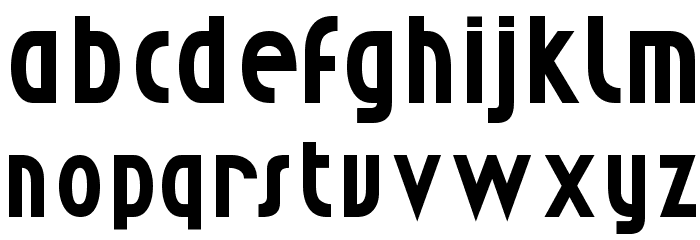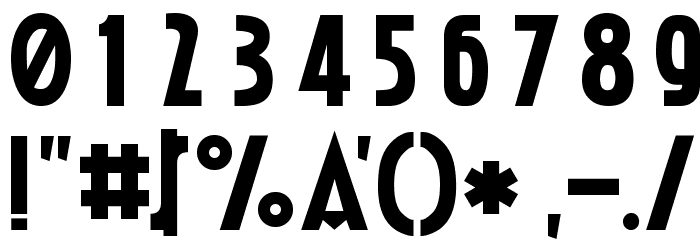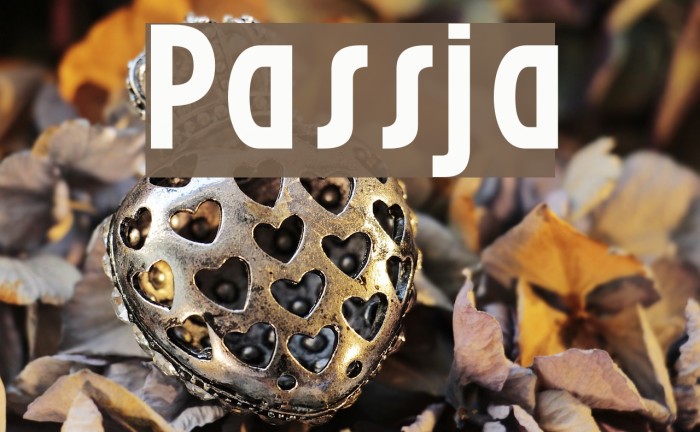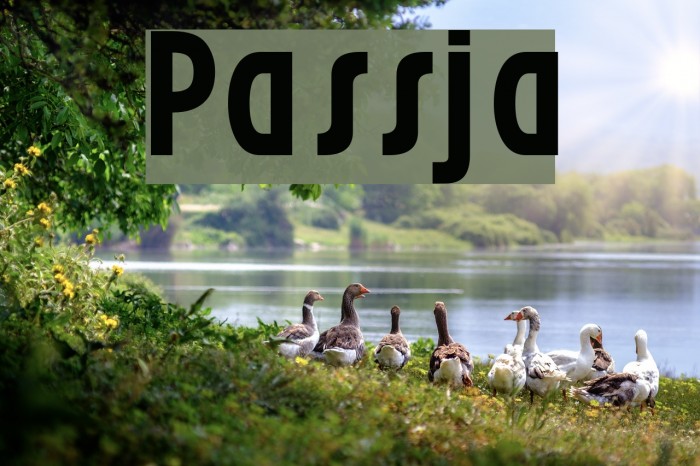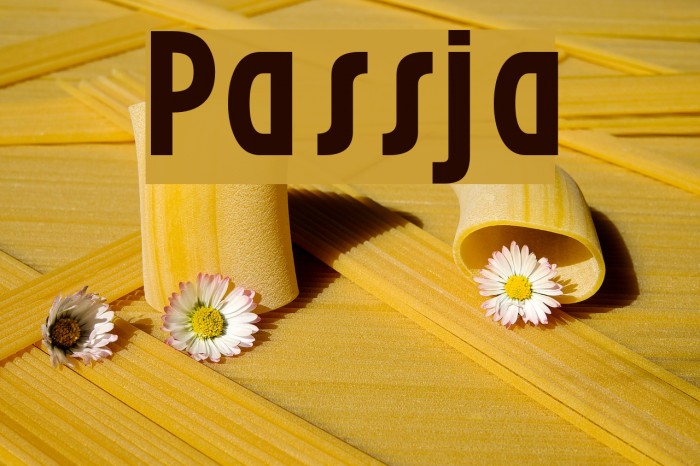
Passja Font
This font exhibits a bold and geometric style with a modern flair. The characters are crafted with clean lines and a uniform thickness, giving it a strong and assertive appearance. The uppercase letters are particularly striking, featuring sharp angles and a consistent height that enhances readability. The lowercase letters maintain a similar geometric structure, ensuring cohesion across the typeface. Numbers and special characters are designed with the same attention to detail, making them easily distinguishable. This font's overall design is both functional and visually appealing, making it suitable for a variety of applications.
A bold, geometric font with a modern and assertive style.
- Proposed Projects: Ideal for branding, advertising, posters, and headlines where a strong visual impact is desired.